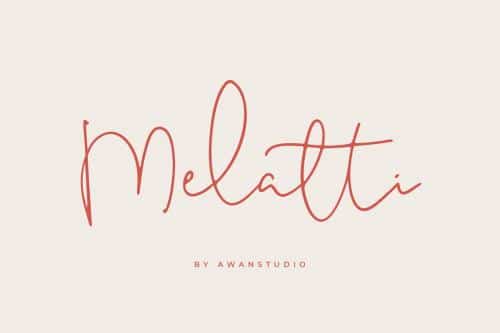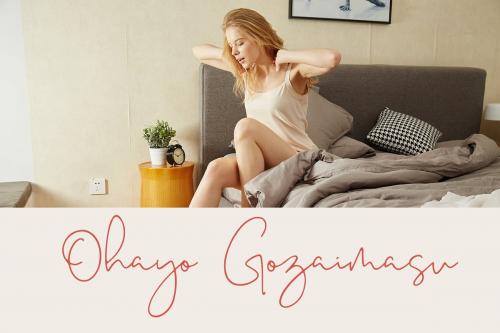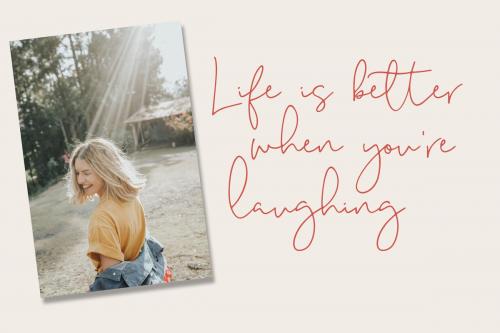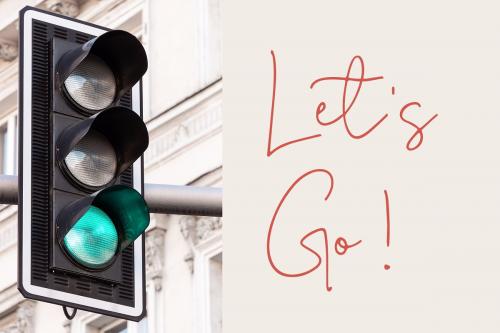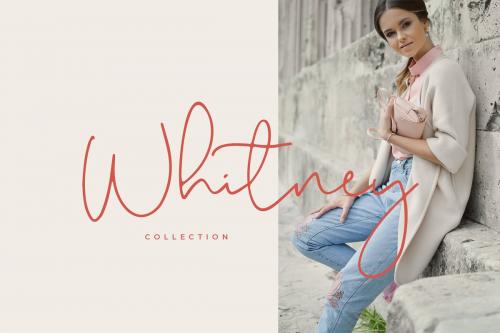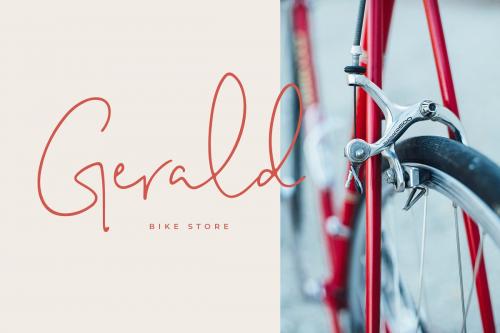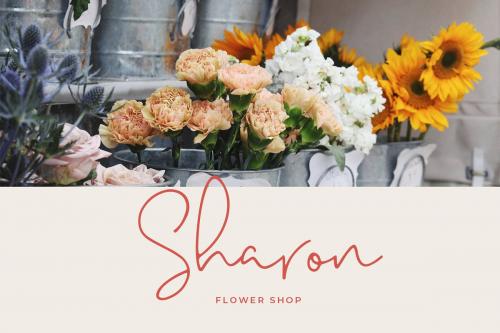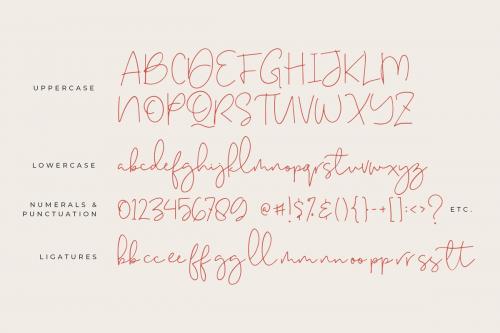
A new fresh handmade signature typeface. It allows you to create stunning and easy hand-lettering in an instant. Introducing Melatti Font.
Melatti Handwritten Font allows you to create stunning and easy hand-lettering in an instant. Ideal for the logo, quotes, wedding, product label/packaging, fashion, letter, advertising, invitation, poster, merchandise, greeting cards, etc.